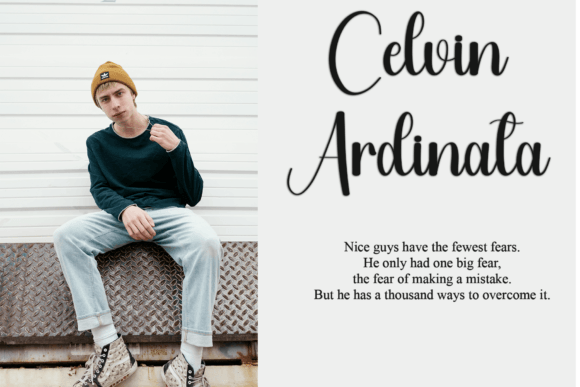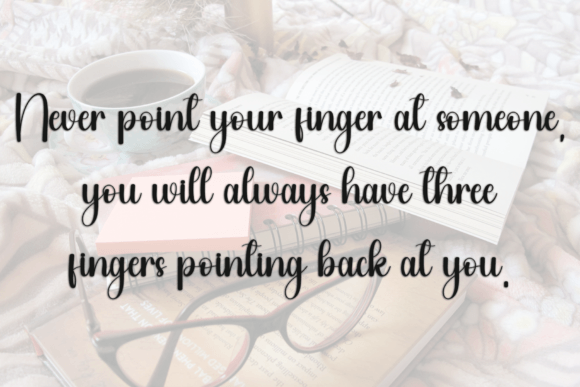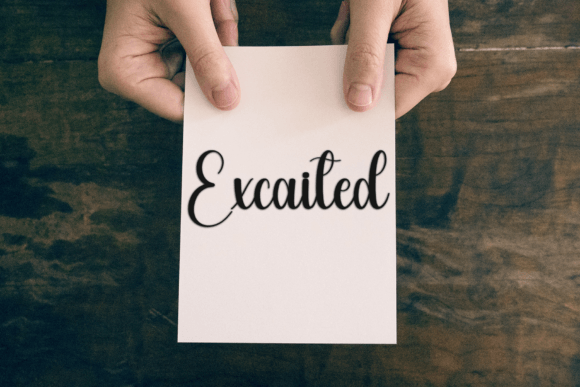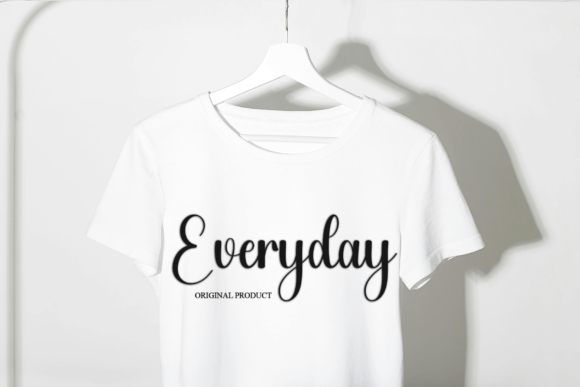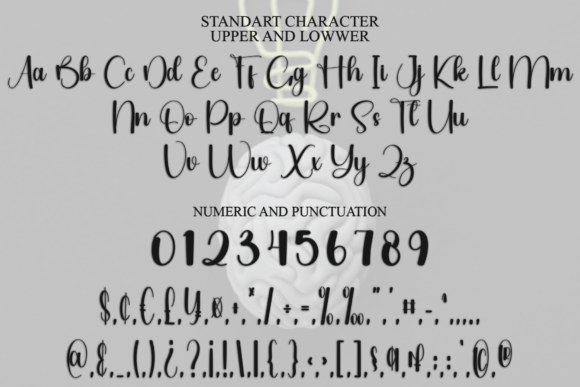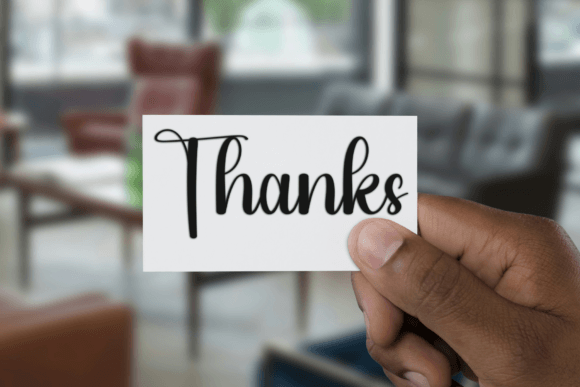
Brainly Font: The Elegant and Charming Choice for Designers and Crafters
Brainly Font is a beautiful, handwritten typeface that has captured the hearts of designers and crafters alike. Its elegant and charming appearance makes it perfect for a wide range of design projects, from wedding invitations and thank you cards to quotes, greeting cards, logos, business cards, and more.
The Characteristics of Brainly Font
Brainly Font boasts a unique and distinctive appearance that sets it apart from other fonts. Its handwritten style is smooth, flowing, and full of character, with subtle variations in line width and a gentle, cursive feel. The font is highly legible, making it suitable for both digital and print applications.
Why Designers and Crafters Love Brainly Font
Designers and crafters love Brainly Font for its versatility and aesthetic appeal. Here are just a few reasons why:
- Elegance and Charm: Brainly Font exudes elegance and charm, making it perfect for designs that require a touch of sophistication and refinement.
- Versatility: The font is highly versatile and can be used for a wide range of design projects, from formal events like weddings and galas to more casual applications like greeting cards and quotes.
- Legibility: Brainly Font is highly legible, even at small sizes, making it suitable for use in digital and print applications.
- Unique Character: The font has a unique and distinctive character that sets it apart from other fonts, making it perfect for designers and crafters who want to add a personal touch to their designs.
Using Brainly Font in Design Projects
Brainly Font can be used in a wide range of design projects, including:
- Wedding Invitations: The font’s elegant and charming appearance makes it perfect for wedding invitations, save-the-date cards, and other wedding-related designs.
- Thank You Cards: Brainly Font is also suitable for thank you cards, greeting cards, and other types of stationery.
- Quotes and Typography: The font’s unique character and legibility make it perfect for use in quotes, typography, and other text-based designs.
- Logos and Branding: Brainly Font can be used to create custom logos, business cards, and other branding materials that require a touch of elegance and sophistication.
- Greeting Cards and Stationery: The font is also suitable for use in greeting cards, stationery, and other paper crafts.
Tips for Using Brainly Font
Here are a few tips for using Brainly Font in your design projects:
- Use it sparingly: Brainly Font is a statement font, so use it sparingly to add emphasis and elegance to your designs.
- Pair it with other fonts: The font pairs well with other fonts, so experiment with different combinations to find the perfect look for your design.
- Adjust the size and color: Adjust the size and color of the font to suit your design needs and to ensure that it is legible.
Brainly Font is a beautiful, elegant, and charming typeface that is perfect for designers and crafters who want to add a touch of sophistication and refinement to their designs. Its versatility, legibility, and unique character make it suitable for a wide range of design projects, from wedding invitations and thank you cards to quotes, logos, and more. Whether you’re a professional designer or a crafty DIY enthusiast, Brainly Font is a great choice for any design project that requires a handwritten touch.